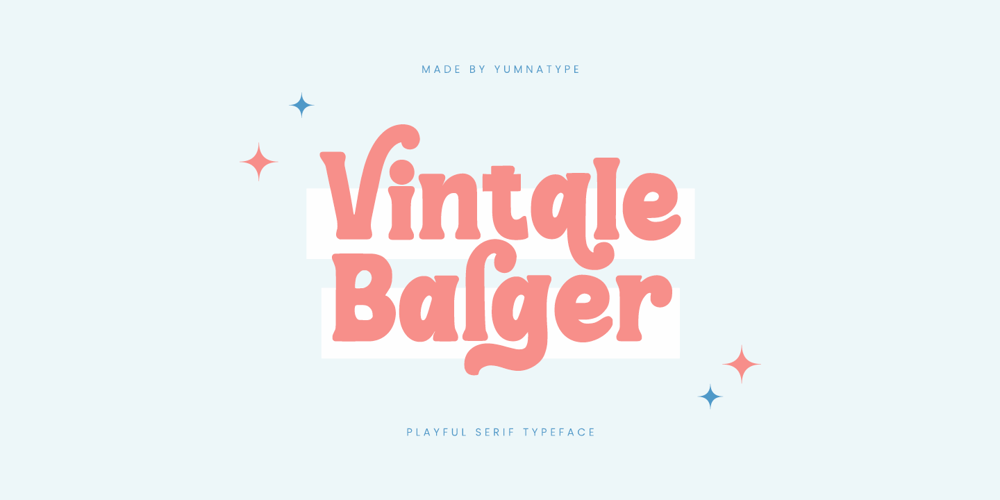
Vintale Balger Font Family was designed by Donis Miftahudin and published by Yumna Type. Vintale Balger contains 1 styles and family package options. Vintale Balger is a whimsical serif display font that infuses playful charm into any design project. Crafted with meticulous attention to detail, Vintale Balger exudes a sense of whimsy and personality in every letter. Despite its thick weight and low contrast, the consistent proportions ensure that each character retains its readability and clarity. With its playful style and charming details, Vintale Balger adds a sense of joy and spontaneity to any project. In addition, enjoy the features here.Features: Ligatures Stylistic Sets Multilingual Supports PUA Encoded Numerals and Punctuations Vintale Balger fits in headlines, logos, posters, flyers, branding materials, greeting cards, print media, editorial layouts, and many more designs. Find out more ways to use this font by taking a look at the font preview.Thanks for purchasing our fonts. Hopefully, you have a great time using our font. Feel free to contact us anytime for further information or when you have trouble with the font. Thanks a lot and happy designing.